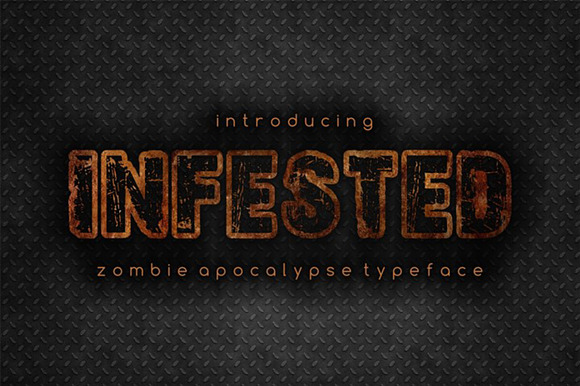
Infested - apocalyptic display font
Infested Are you ready for the zombie apocalypse typeface? Infested © typeface is the brutal, scratched font that just recovered after zombie attack. Do not expect it to be calm and easy designs. Use it in parties, posters, decorations, pranks, postcards and many more. It has melted, damaged and scorched letters. This typeface is ideal for street advertisement like for example night bar name, themed cafe shop, carnival or Halloween-like events, service description design, menu in vintage style cafe, decoration party etc. Your contribution is highly appreciated. Please share this font with friends. Short list of possible uses for inspiration:
Book covers or inside chapters section heading
Posters or postcards design
Party decorations and congratulation cards
Invitation letters and business envelopes
Text headings and graphic themes designs
Infested - apocalyptic display font by Vintage Font Lab fits naturally into Branding, posters, packaging, typography.